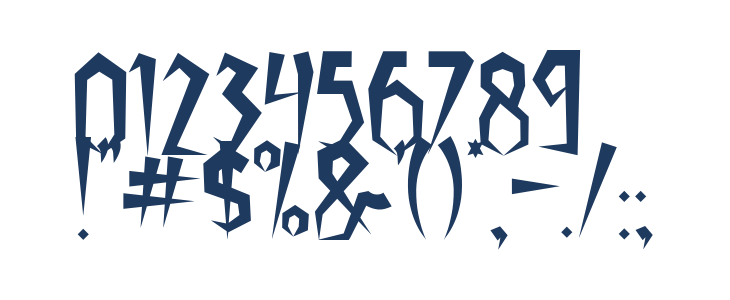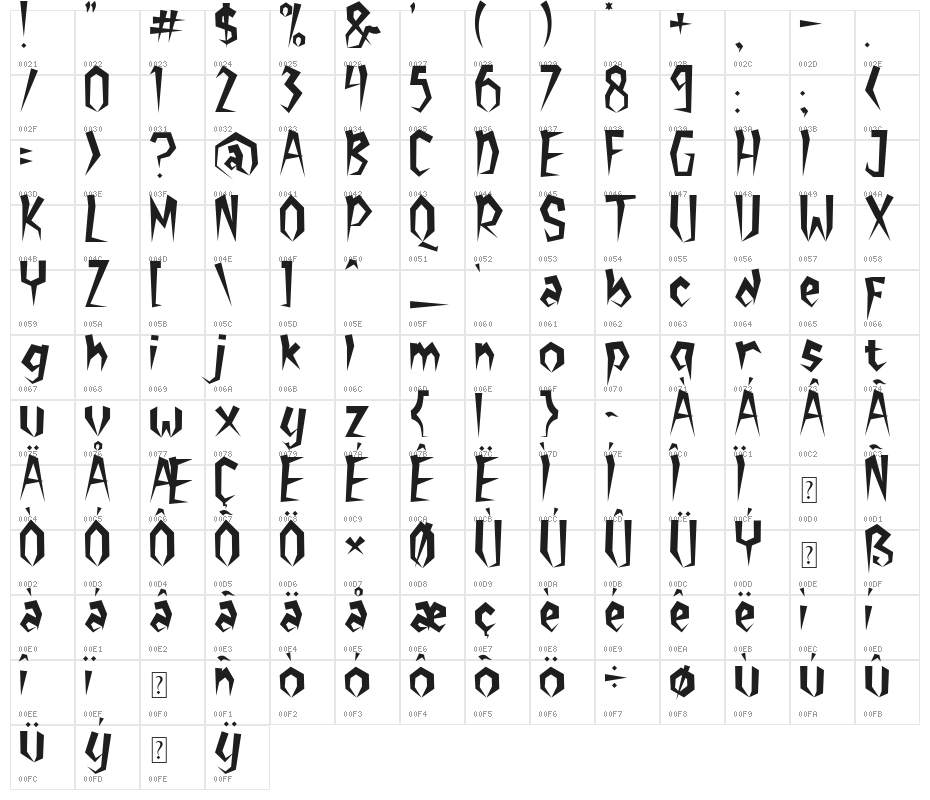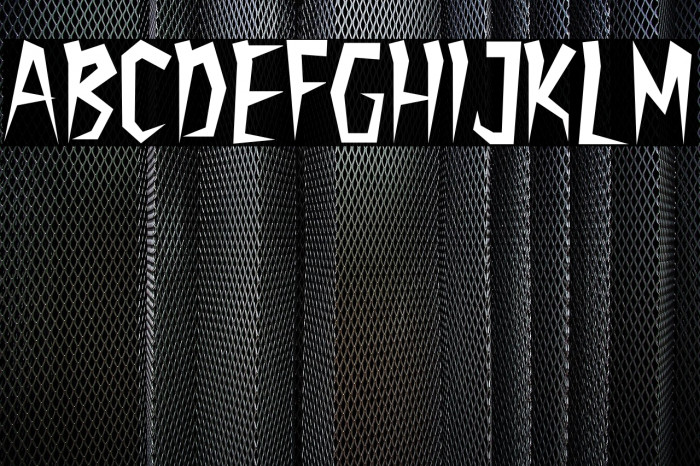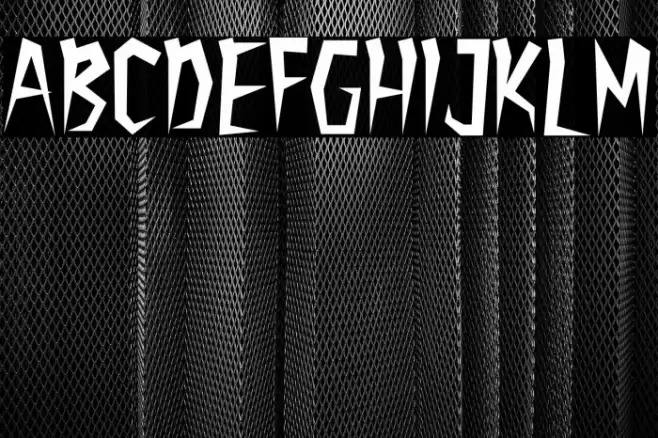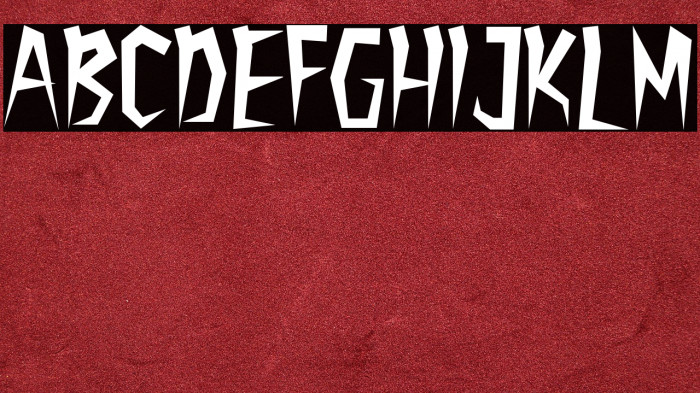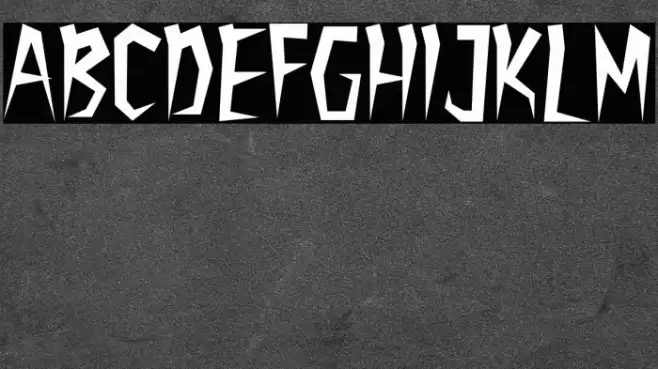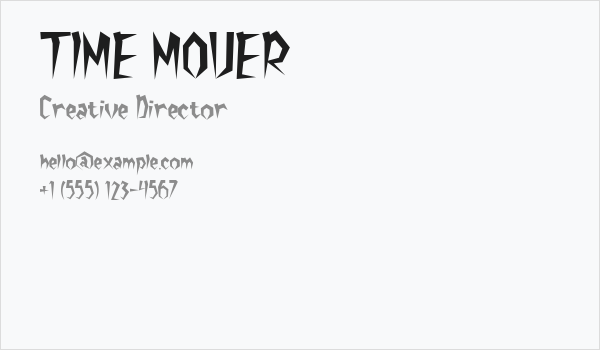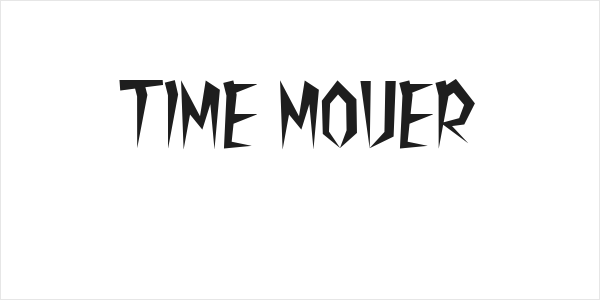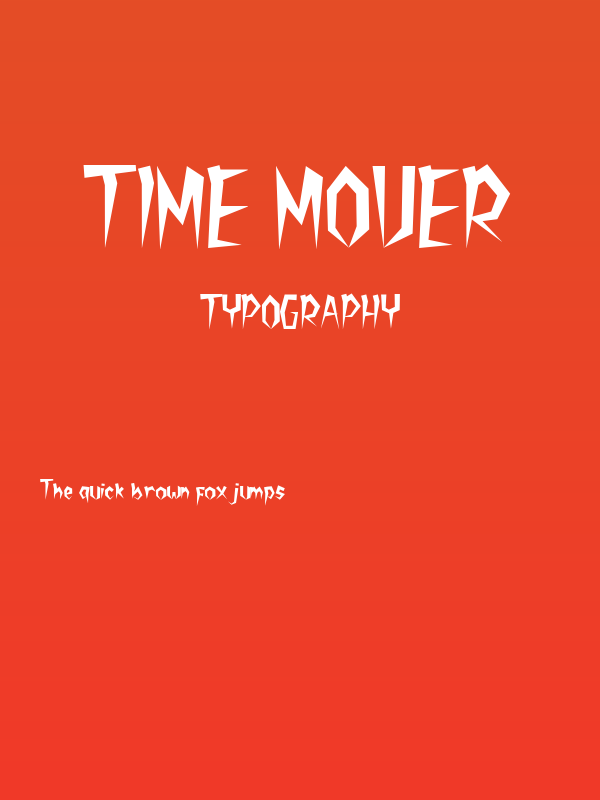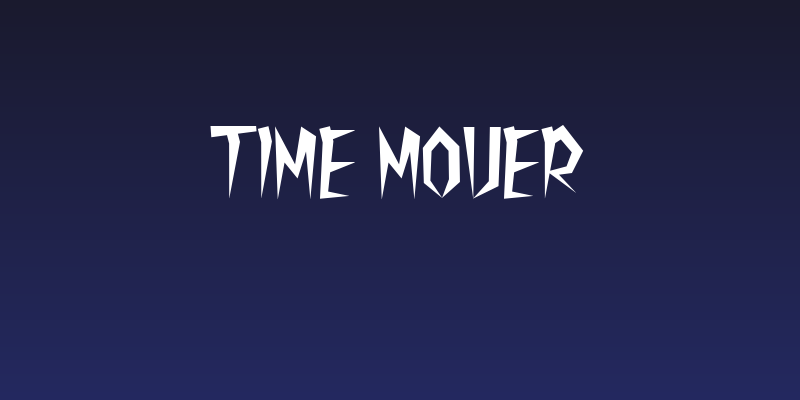
TIME MOVER Font
TIME MOVER Description
This font features a bold and angular design, characterized by sharp edges and a dynamic, energetic appearance. The letters are highly stylized with exaggerated points and angles, giving them a futuristic and edgy feel. The uppercase and lowercase letters maintain a consistent style, with the uppercase being slightly more elongated. Numbers and special characters follow the same angular theme, ensuring a cohesive look across all glyphs. The font's unique style makes it stand out, suitable for projects that require a modern and impactful visual statement.